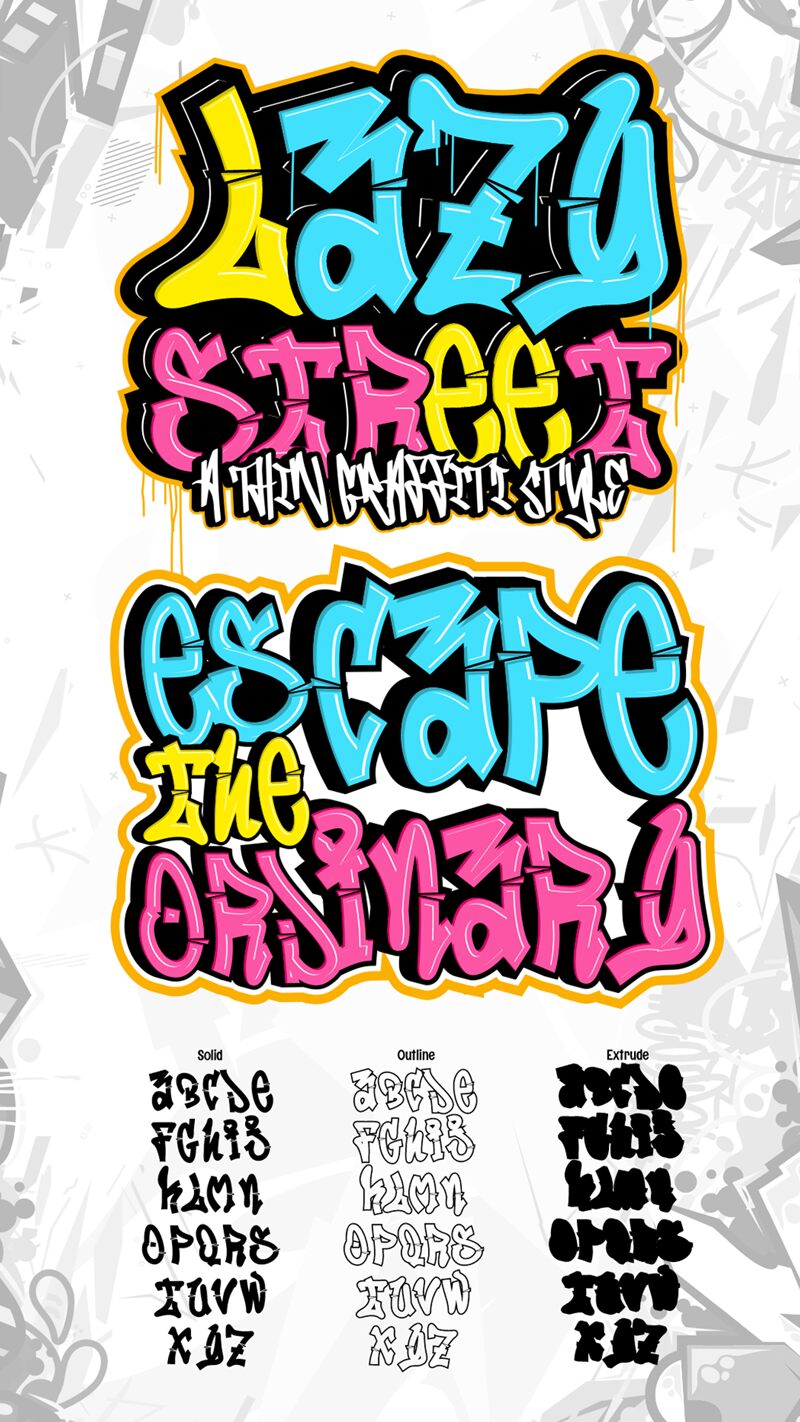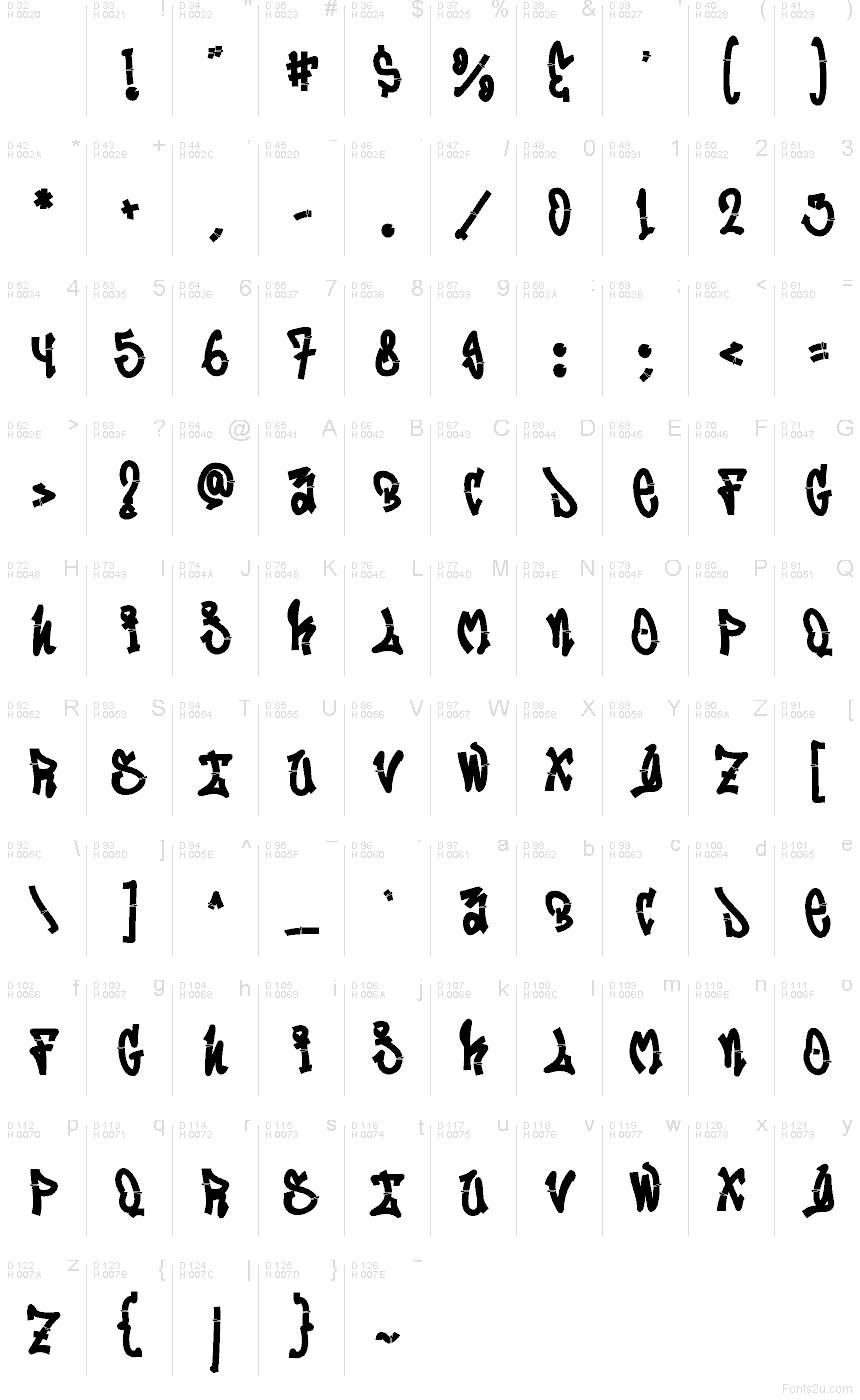
Lazy Street Solid by Sipanji and Figuree is a free graffiti display font with broad, uneven forms and a jagged silhouette. Deep curves meet abrupt corners, giving the letters a restless pace. Sliced gaps recur across the strokes as a sharp graphic detail.
Youth-focused fashion and music brands can use its compact forms for logos, merchandise, and event posters. The chunky shapes also suit skate graphics, turning lettering into part of the artwork. Its strongest setting is street art.